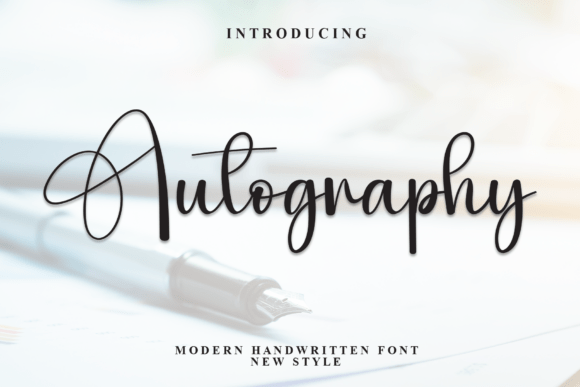
The Autography Font: Elevate Your Designs with Artistic Flair
Have you ever been in the midst of working on a design project, only to find yourself stuck on one thing: the perfect font? I recall a particularly frustrating experience while crafting a logo for a client’s boutique brand. The design was almost complete, but the font just wasn’t cooperating. It was either too bland, too over-the-top, or just plain mismatched. That’s when I stumbled upon the Autography font, and it was love at first sight! 💕
What Makes Autography Font So Special?
Autography is a stylish script font that exudes artistic flair and contemporary elegance. Featuring fluid brush strokes, dynamic curves, and expressive letterforms, it captures the essence of hand-painted calligraphy with a modern twist. This font is ideal for logos, invitations, packaging, and social media graphics, adding a creative and sophisticated touch to any design.
• ✨ Fluid brush strokes: Autography’s fluid strokes give it a natural, hand-painted feel that’s perfect for designs that require a personal touch.
• ✅ Expressive letterforms: Each letterform is unique and full of character, making it perfect for titles, headings, and logos.
• 💫 Contemporary elegance: Autography’s modern twist on traditional calligraphy makes it perfect for designs that require a touch of sophistication.
• 🎨 Versatility: This font can be used for a wide range of design projects, from logos and invitations to packaging and social media graphics.
While Autography is an amazing font, there are a few things to keep in mind: 🤔
• ⚠️ Legibility at small sizes: Like many script fonts, Autography can be a bit tricky to read at small sizes. It’s best used at larger sizes, such as headings or titles.
• ⚠️ Limited use in body text: While Autography is perfect for headings and titles, it’s not the best choice for body text. Its unique letterforms and fluid strokes can make it difficult to read in longer blocks of text.
The Designer Inspiration Behind Autography
Autography was designed by a team of creatives who wanted to capture the essence of hand-painted calligraphy with a modern twist. The font’s fluid brush strokes and expressive letterforms are inspired by the works of famous calligraphers and artists. The design team spent countless hours perfecting the font’s unique character and style, making it perfect for designers and crafters who want to add a touch of elegance and sophistication to their work.
Author Strongkeng Old
Q: What is the best way to use Autography in my designs?
A: Autography is perfect for logos, invitations, packaging, and social media graphics. Use it to add a creative and sophisticated touch to your designs.
Q: Is Autography suitable for body text?
A: While Autography is perfect for headings and titles, it’s not the best choice for body text. Its unique letterforms and fluid strokes can make it difficult to read in longer blocks of text.